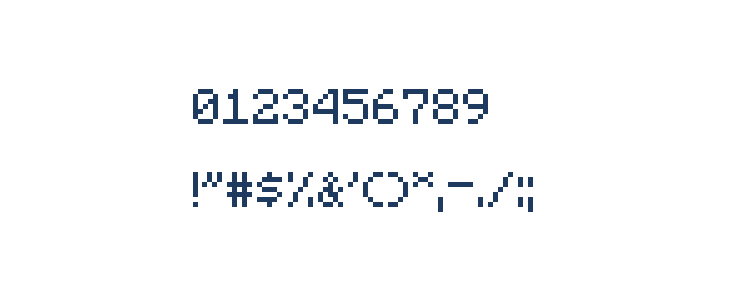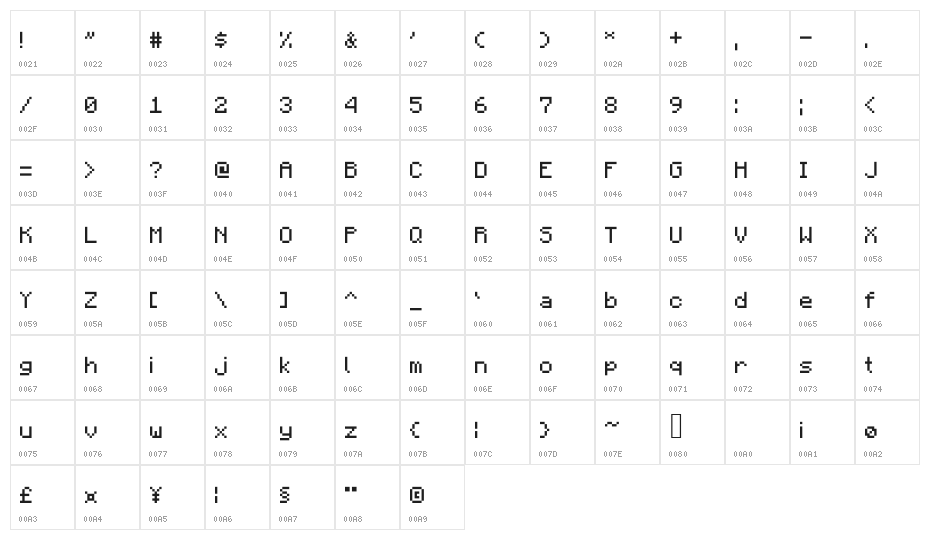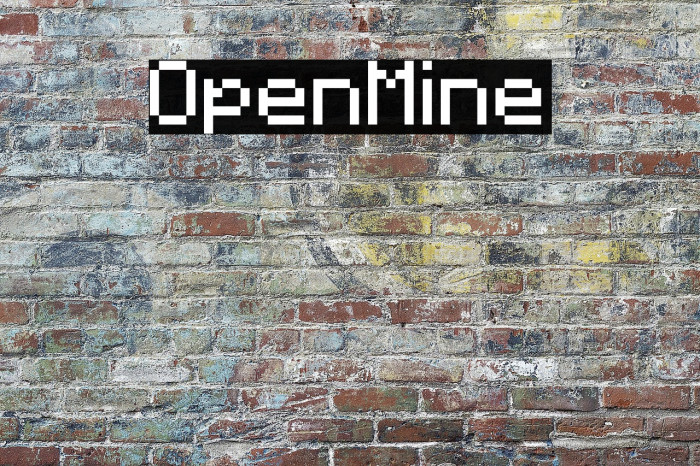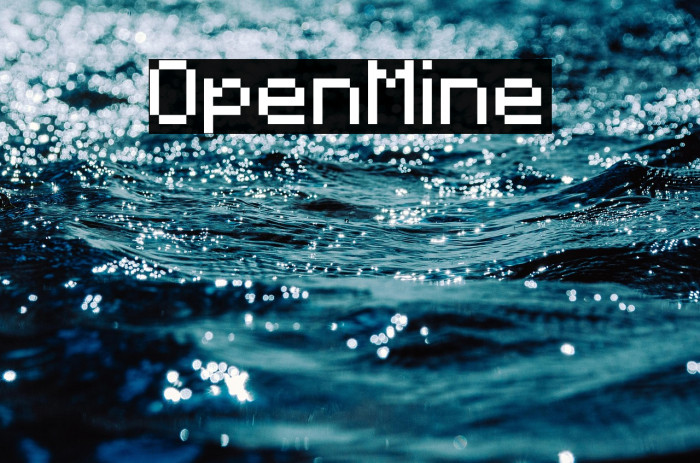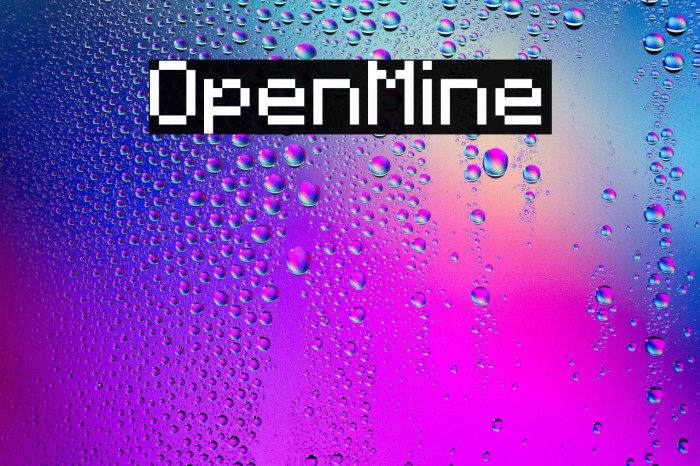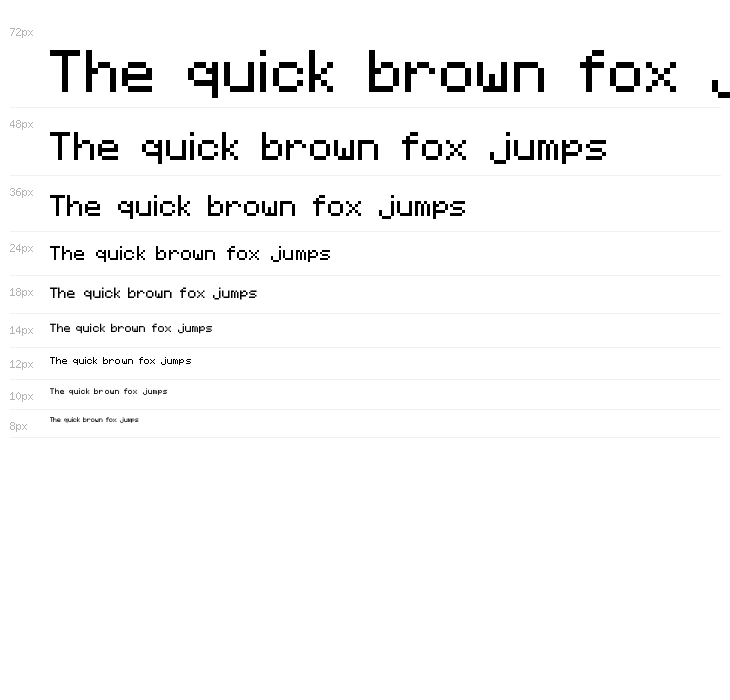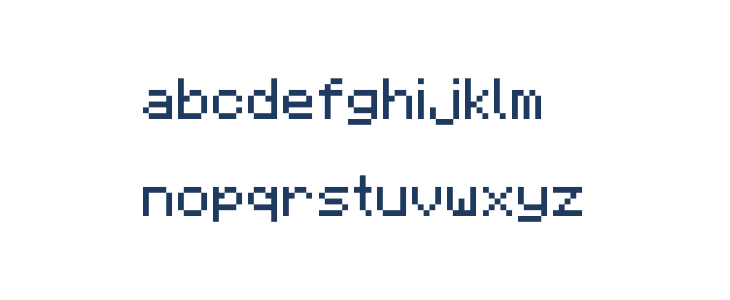
OpenMine Font
OpenMine Description
This font features a pixelated, blocky design reminiscent of early digital displays and retro video games. Each character is constructed with a uniform grid-like structure, giving it a distinctly digital and geometric appearance. The uppercase and lowercase letters maintain a consistent height, contributing to a monospaced feel, although the font is not strictly monospaced. The numerals and special characters follow the same pixelated style, ensuring visual coherence across all glyphs. This font's nostalgic aesthetic makes it ideal for projects that aim to evoke a sense of vintage computing or gaming.
| Overall Style | Vintage |
| Use Case | Logos, Headlines, Digital Art |
| Proposed Projects | Ideal for retro video game designs, digital art projects, and nostalgic tech-themed branding. |